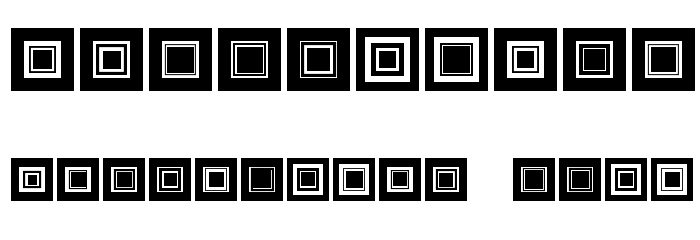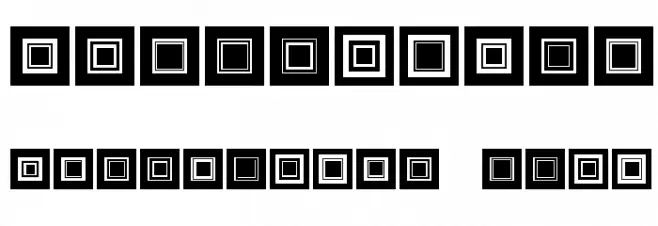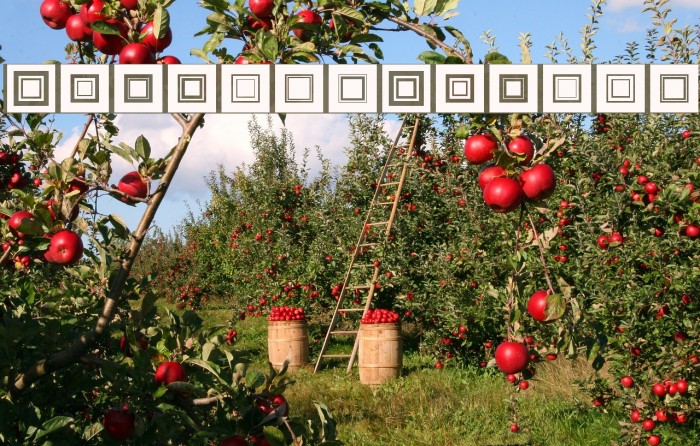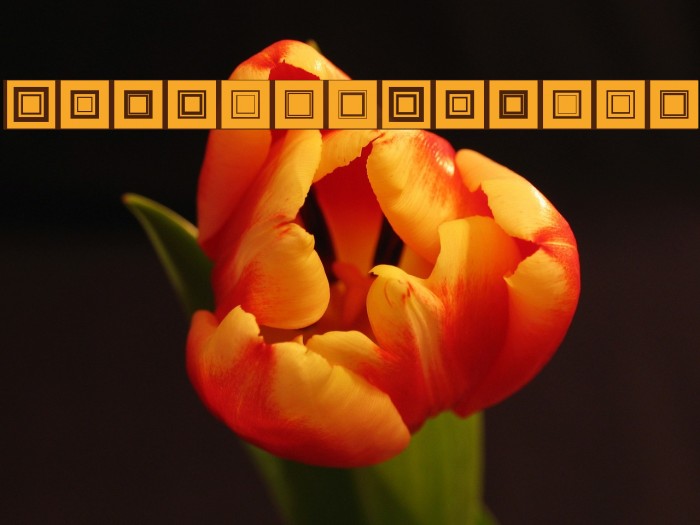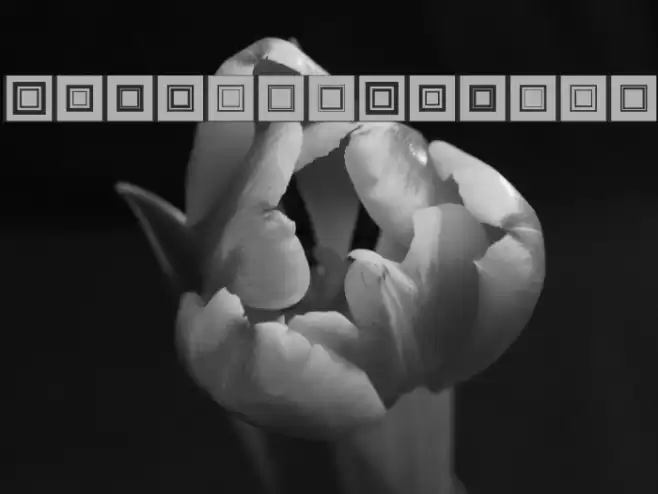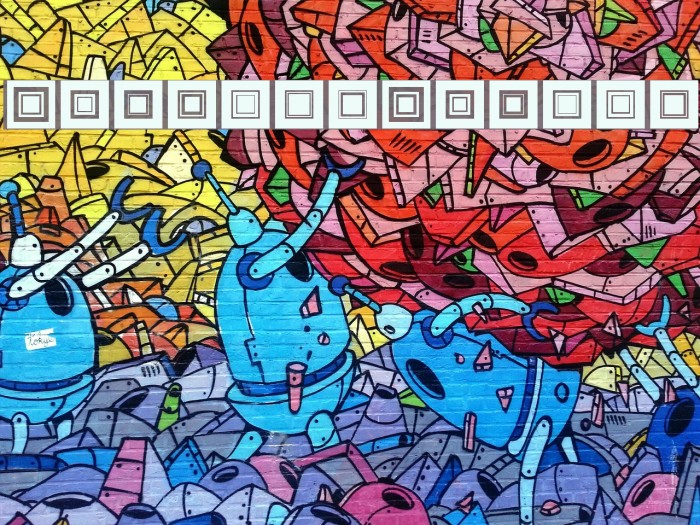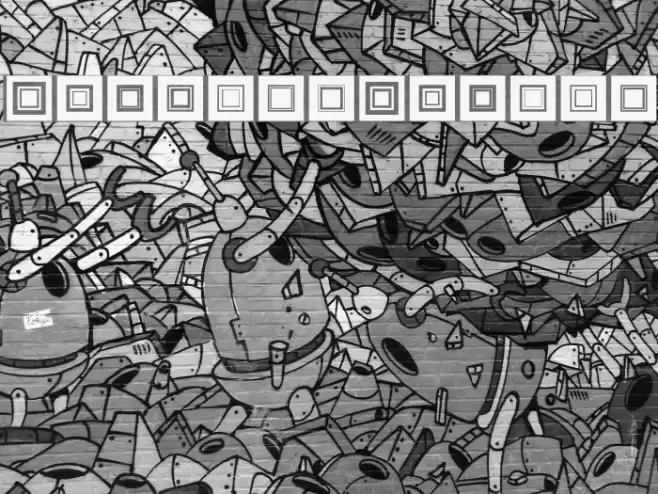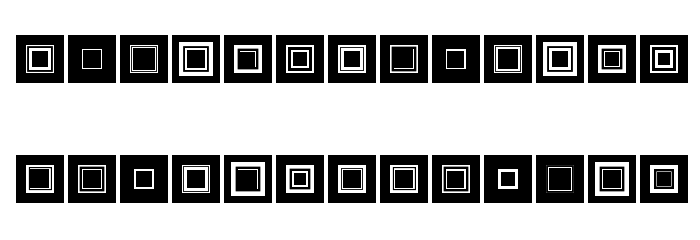
Yonkakubotan Font
Yonkakubotan Description
This font features a unique and abstract design, where each character is represented by a series of nested squares. The characters are not immediately recognizable as traditional letters or numbers, making this font highly decorative and artistic. The use of black and white contrast enhances the geometric pattern, giving it a bold and striking appearance. The uniformity in the design of each character creates a cohesive look, while the varying thickness of the lines adds a subtle complexity. This font is ideal for projects that require a modern and avant-garde aesthetic.
| Use Case | Logos, Posters, Artistic Designs |
| Proposed Projects | Ideal for modern art projects, abstract designs, and creative branding that seeks a unique visual identity. |